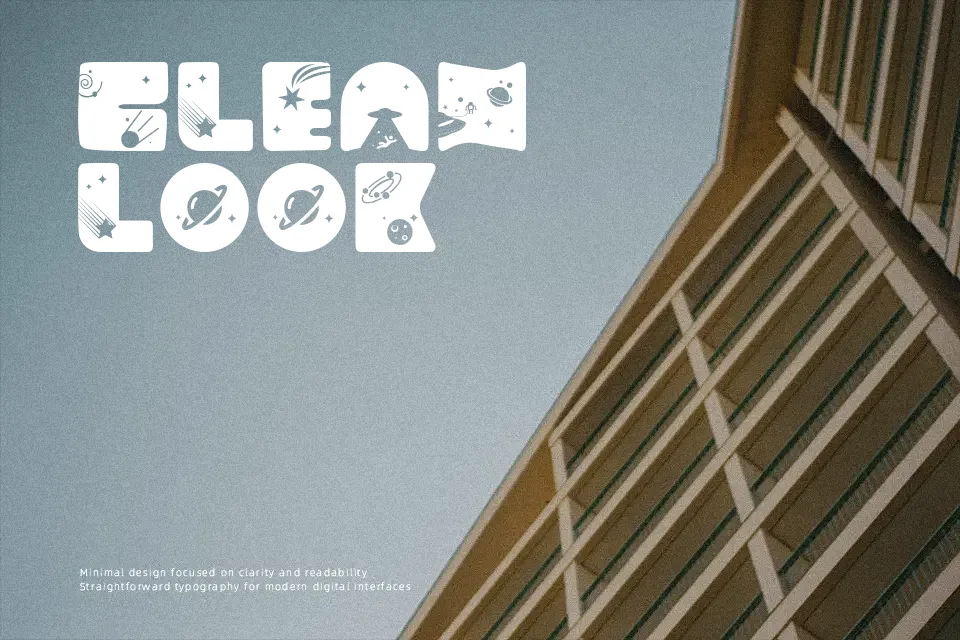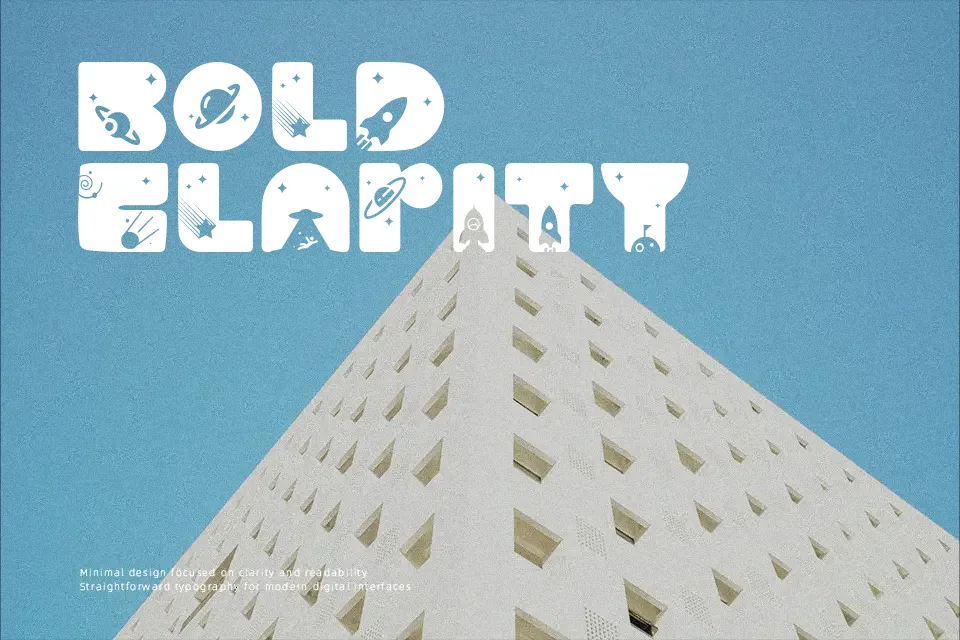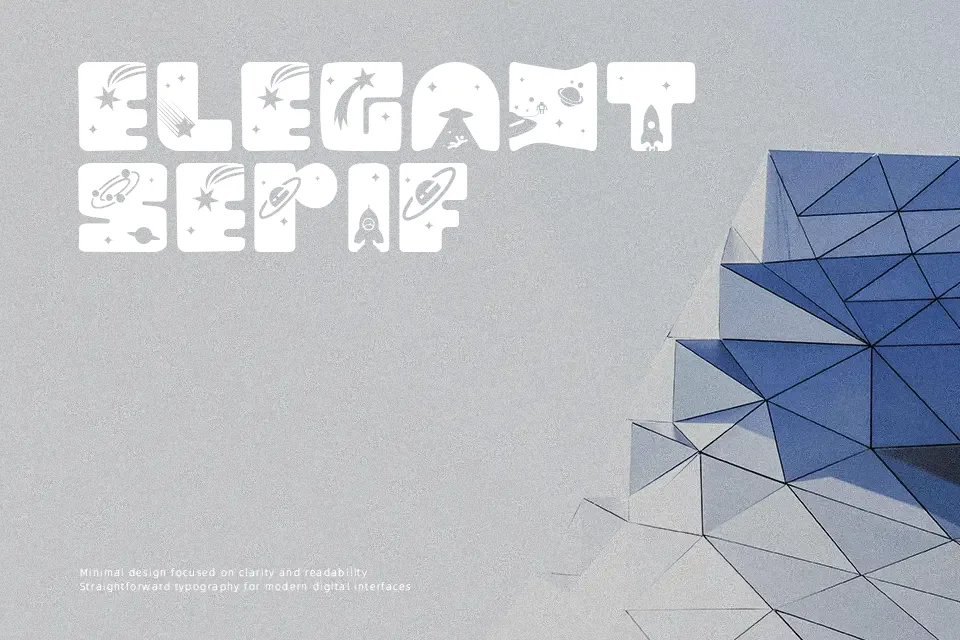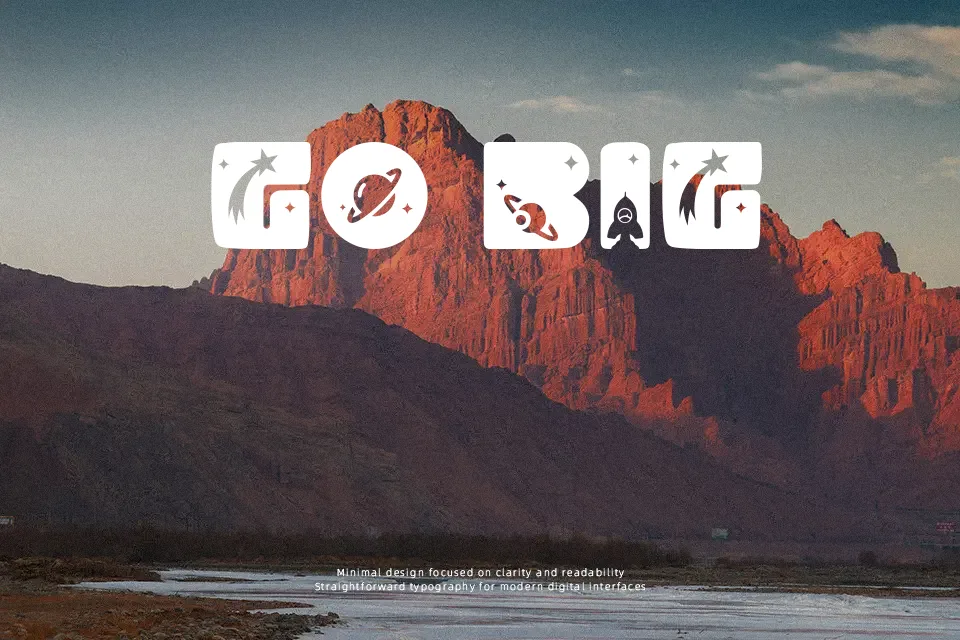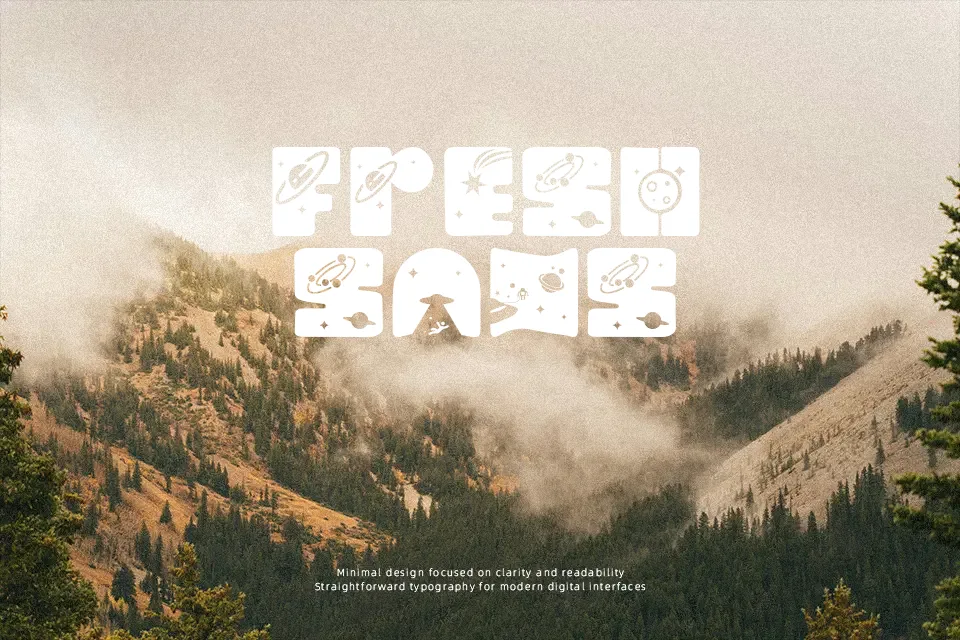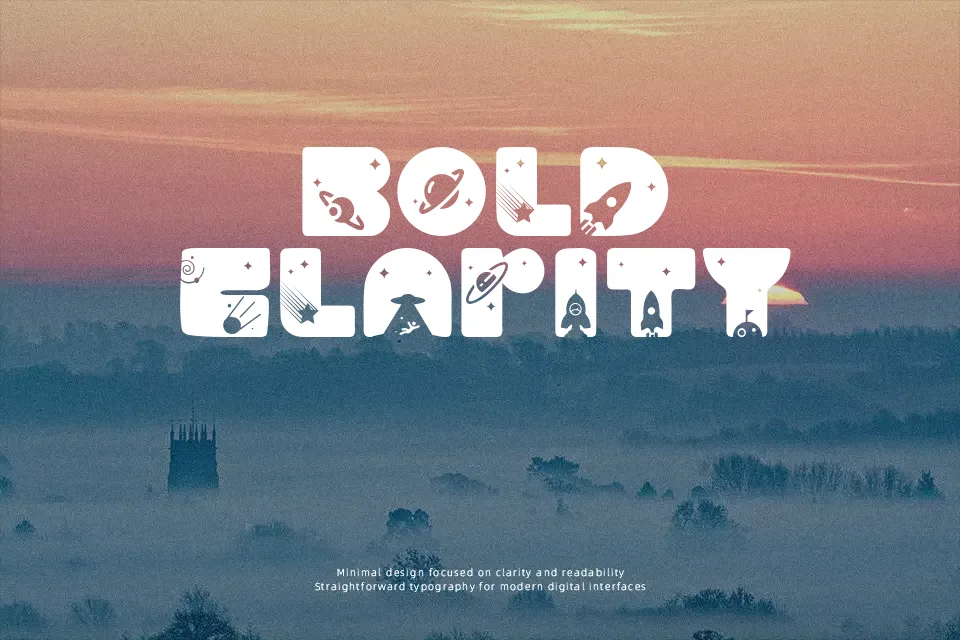
Solar Space Font
Engineered for high-impact visual layouts, Solar Space Font presents an expanded display structure characterized by rounded geometric letterforms, low stroke contrast, and clean circular terminals. The wide horizontal proportions and open tracking allow individual glyphs to stand out distinctly in bold aerospace titles, esports banners, and futuristic entertainment identities. Generous inner counters preserve distinct silhouette recognition across medium and large display scales, ensuring titles remain legible from a distance. However, the extended character widths and decorative stylization make the typeface unsuitable for continuous body copy or compact editorial paragraphs, where dense horizontal space is required.
Best For: sci-fi video game titles, aerospace branding, esports tournament banners, futuristic tech packaging
Not Ideal For: long editorial paragraphs, technical documentation, dense mobile interface text, book interior typesetting
Perfect for film, gaming, and headline, with a bold and display style.